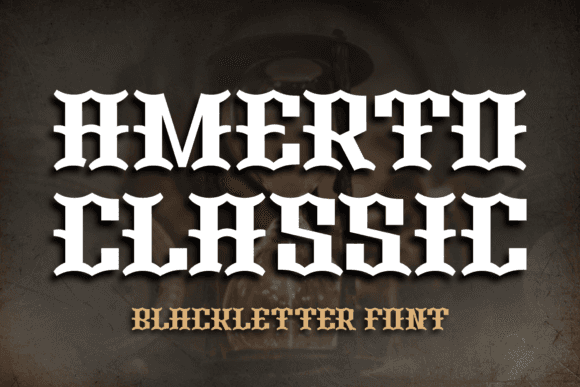
Amerto Classic Font
The Amerto Classic blackletter font is a striking and traditional typeface that evokes medieval script's elegance and historical richness. This font is perfect for creating a timeless and sophisticated look, often associated with old manuscripts, gothic architecture, and classical documents. Whether used in branding, decorative items, or formal documents, Amerto Classic adds a timeless and distinctive character to any text.